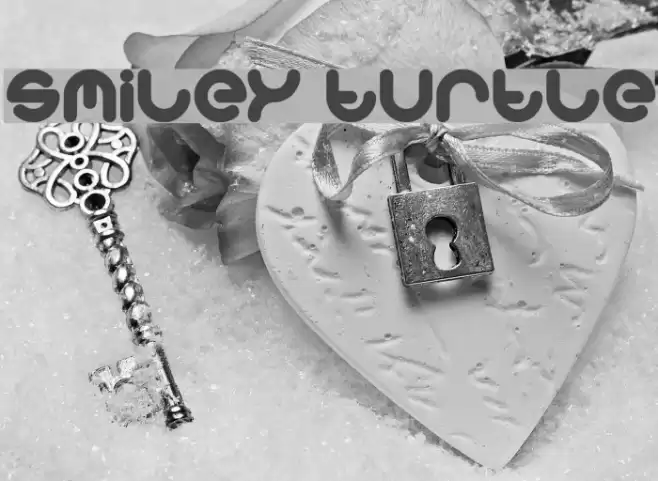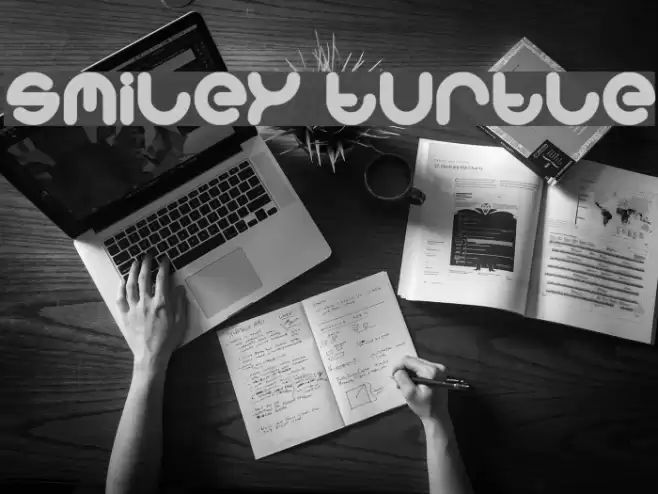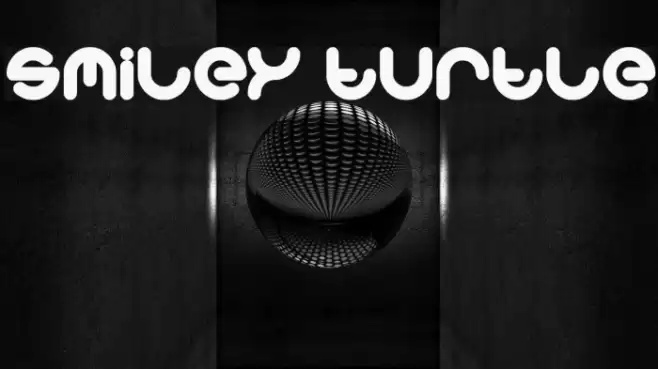
smiley turtle Font
smiley turtle Description
This font features a playful and rounded design, characterized by its bold and bubbly letterforms. Each character is crafted with a consistent thickness, giving it a uniform appearance. The rounded edges and smooth curves create a friendly and approachable look, making it ideal for fun and informal projects. The letters are evenly spaced, providing a balanced and harmonious visual flow. This font includes a full set of uppercase and lowercase letters, numbers, and a variety of special characters, ensuring versatility for different design needs.
A playful, rounded font with bold, bubbly letterforms and smooth curves from Uncategorized fonts.
- Proposed Projects: Ideal for children's books, playful branding, party invitations, and casual social media graphics.
- Overall Style: Playful